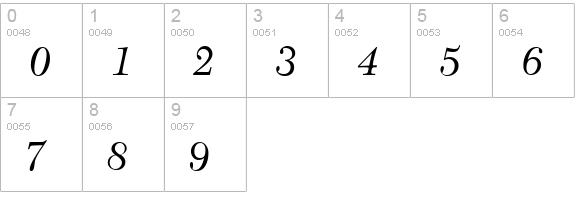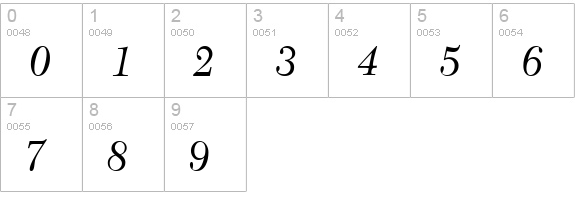
C651-Roman-Italic Font Details
C651-Roman-Italic is a distinctive, italic variant in the C651 typeface family \xE2\x80\x94 well suited to design and typography projects.
The C651-Roman-Italic font is a timeless and elegant typeface that exudes sophistication and charm. Its delicate curves and graceful strokes make it perfect for adding a touch of classic beauty to any design project. This versatile font is ideal for use in a variety of applications, from invitations to logos to branding materials. What sets the C651-Roman-Italic font apart is not only its exquisite design but also the fact that it is available for free download at FontsMarket.com. This means that you can easily access this stunning font to elevate your creations without any cost. Whether you're a designer looking to enhance your portfolio or a business owner seeking to create a memorable brand identity, the C651-Roman-Italic font is a valuable addition to your toolkit. Download the C651-Roman-Italic font today from FontsMarket.com and discover the beauty and versatility of this exquisite typeface. Let your creativity shine with this free and captivating font that is sure to make a lasting impression.